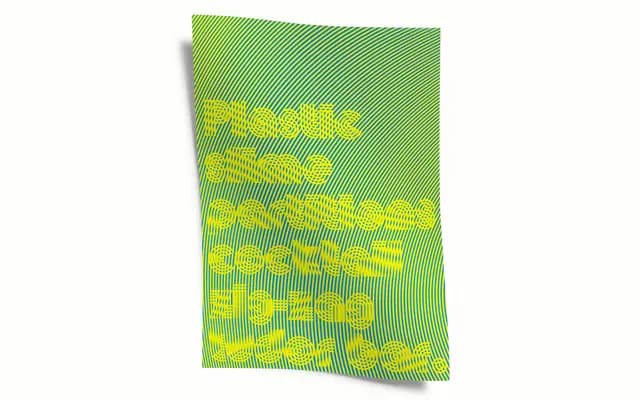
Vibro
Vibro specimen from Signal
A single-weight display face built on chromatic vibration principles, deliberately sacrificing legibility for maximum optical disruption.
Designed by Theo Rosendorf at Post Studio, Vibro strips out counters in favour of continuous striping and exploits chromatic vibration to create an intense optical dazzle effect. Dingbats and exotic ligatures amplify the visual noise, while a full diacritic set extends coverage to over 130 languages. It won a TDC Certificate of Excellence and sits firmly in territory where spectacle is the point.
Vibro is a display typeface built around chromatic vibration and optical dazzle effects, sacrificing legibility and classical letterform construction in favour of pattern-making and visual disruption.